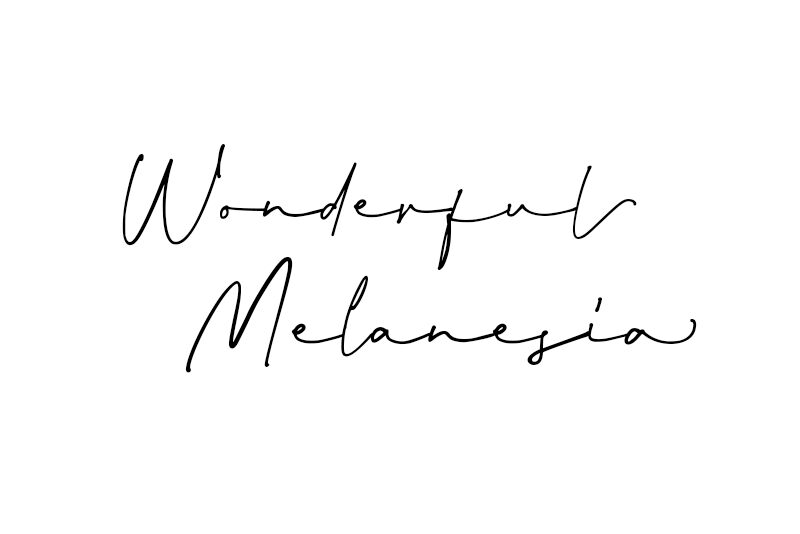
Wonderful Melanesia Signature
Wonderful Melanesia Signature font by Arterfak Project is a light handwritten font with a delicate and flowing style. Its elegant design and sophisticated presence give off a high-end aesthetic appearance when used in its signature style form – perfect for contemporary usage in branding. It can also double as an eye-catcher in personal logos.
Free for unlimited usage, this flowing resource covers business cards, wedding invitations, RSVP cards, brand packaging, book covers, stationery items, poster designs, magazine and newspaper headlines. It fits into social media posts too where its elegance works flawlessly!